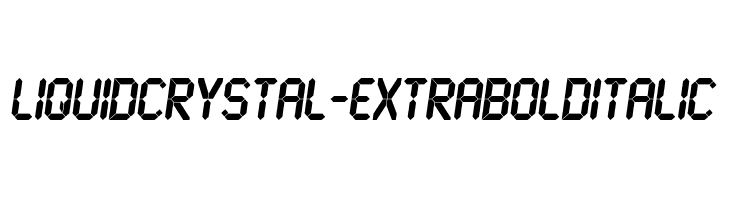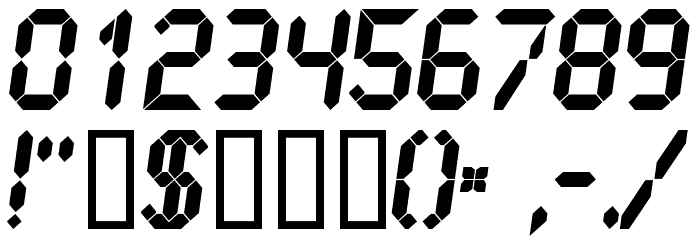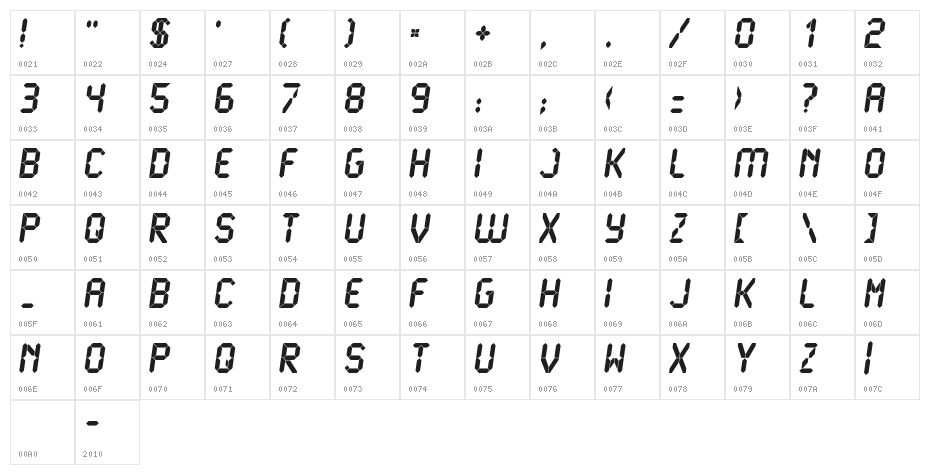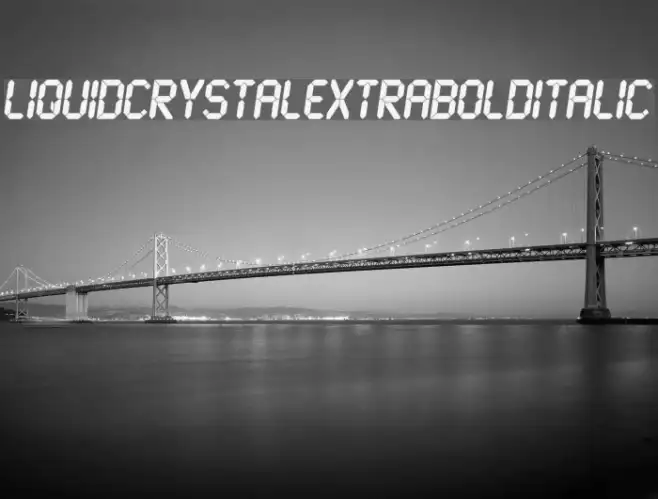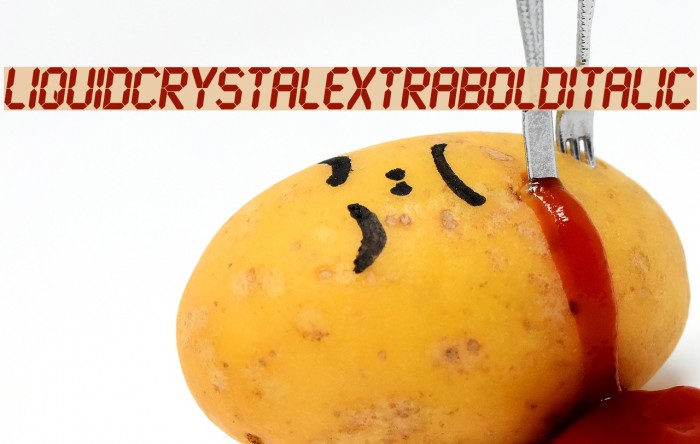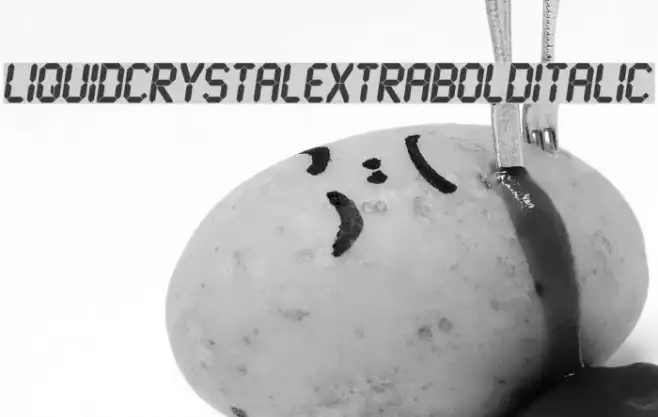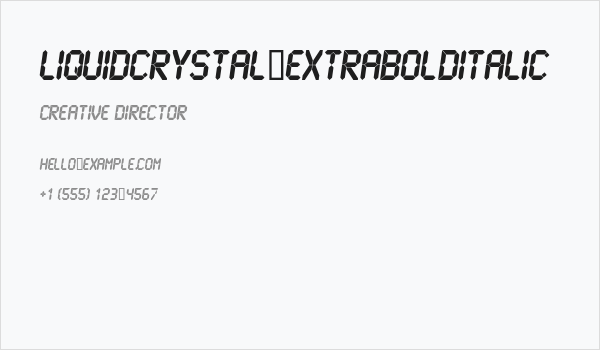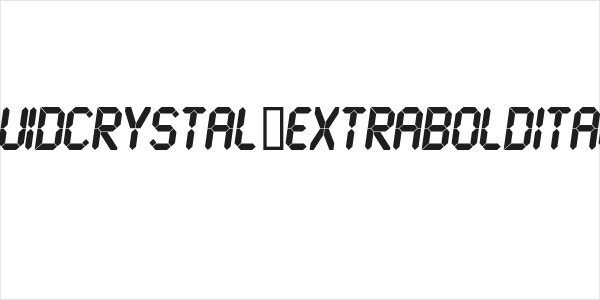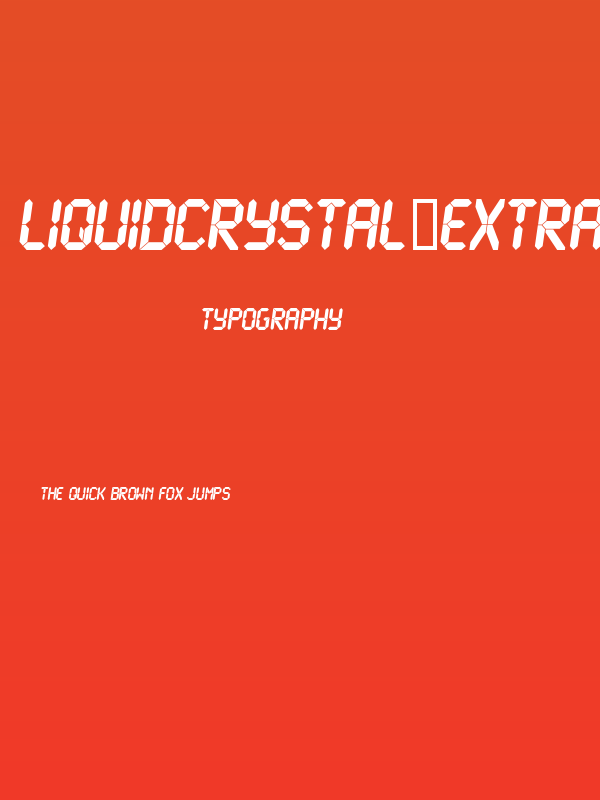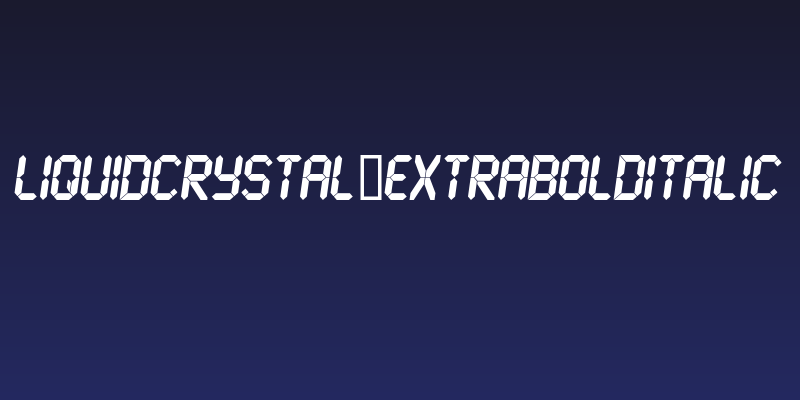
LiquidCrystal-ExtraBoldItalic Font
LiquidCrystal-ExtraBoldItalic Description
This font features a bold and italicized style with a distinct digital, segmented appearance reminiscent of LCD displays. Each character is composed of angular, geometric shapes that create a futuristic and technical aesthetic. The uppercase and lowercase letters maintain a consistent design, with sharp edges and a uniform structure. Numbers and special characters follow the same segmented pattern, enhancing the cohesive look. The font's unique style makes it stand out, ideal for projects that require a modern, tech-inspired feel.
| Proposed Projects | Ideal for digital interfaces, tech-themed posters, video game graphics, and futuristic branding. |